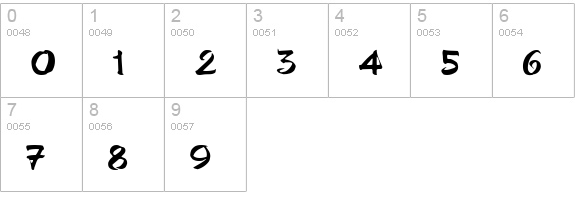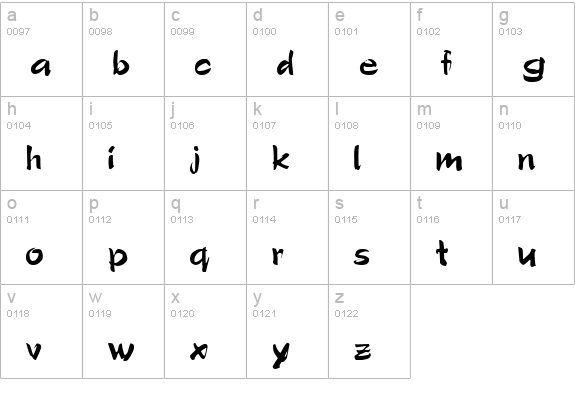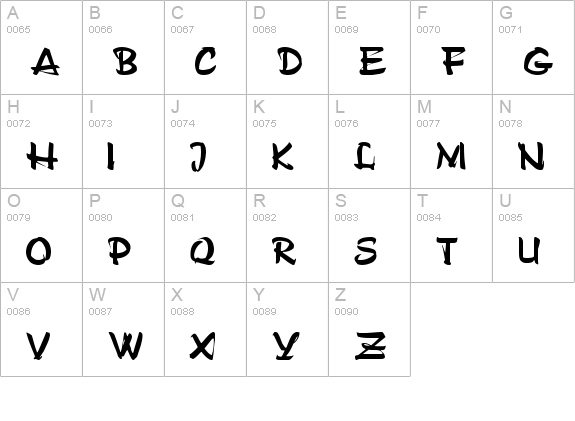
PoloScript Font Details
PoloScript is a charming and elegant font that embodies sophistication and style. With its graceful strokes and flowing curves, this font is perfect for adding a touch of class to any design project. Whether you're creating invitations, branding materials, or simply adding a touch of flair to your social media posts, PoloScript is sure to make a statement. What's even better is that PoloScript is completely free to download at FontsMarket.com. You can easily access this stunning font and elevate your designs without any cost. Don't miss out on the opportunity to enhance your projects with the timeless beauty of PoloScript. Download it today and let your creativity shine!